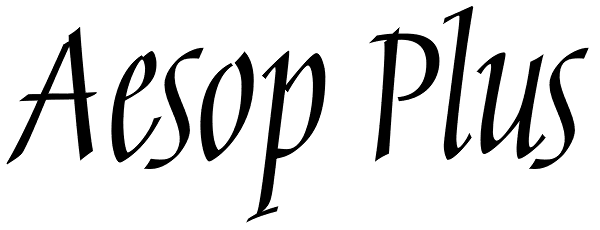
Aesop
Aesop was developed from some book jacket lettering drawn by Michael Harvey for an edition of Aesop’s Fables by a master Japanese Artist. It is based upon a pen-drawn script, and is characterised by a lively sense of movement and grace. Aesop Plus...